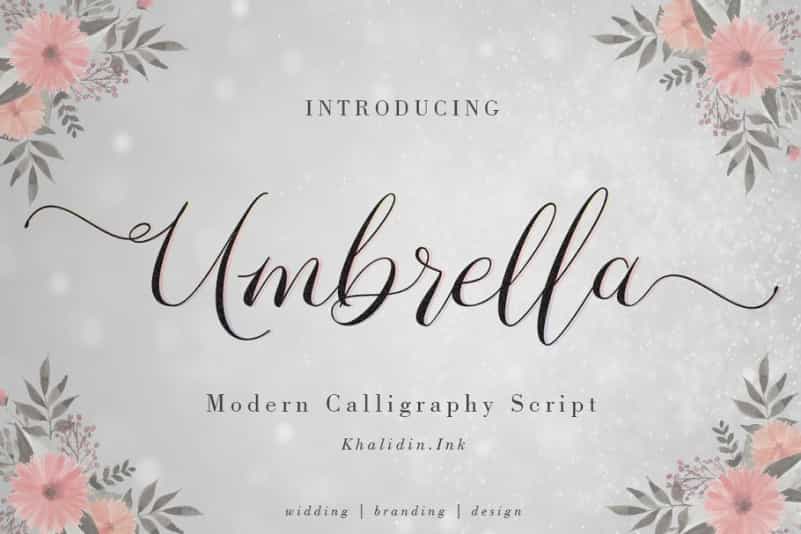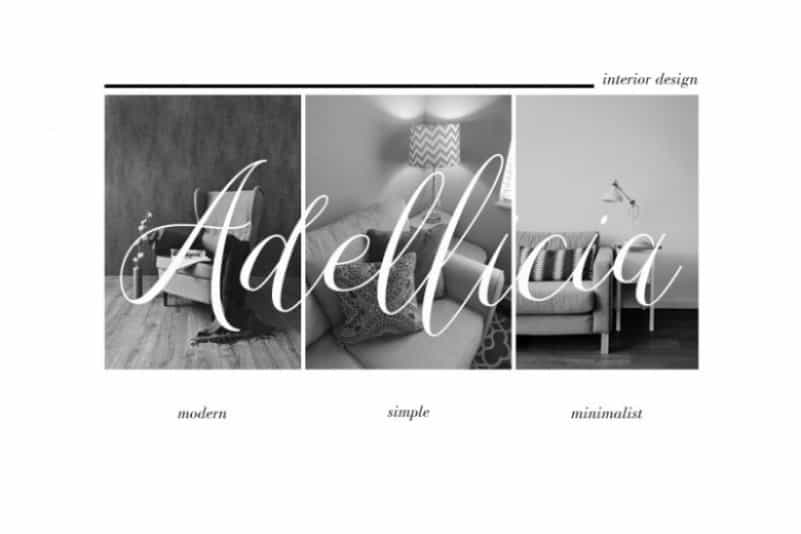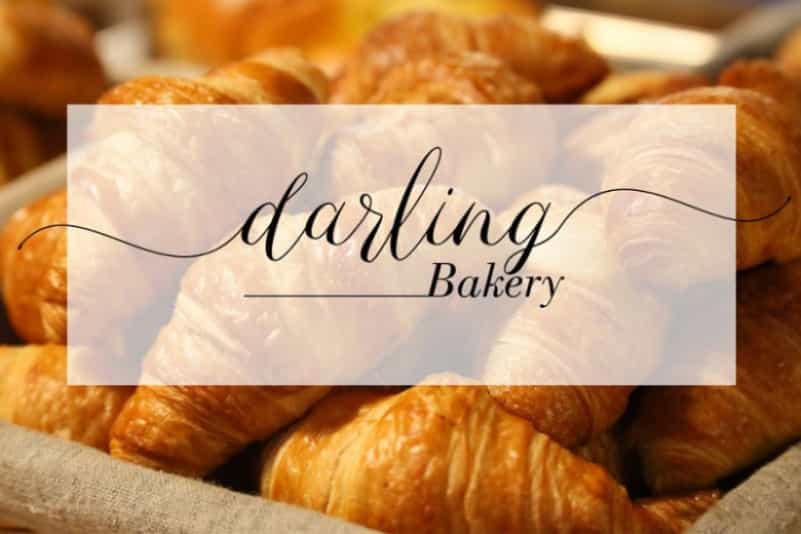
Introducing Umbrella Font. It was designed by Khalidin.Ink. This font is a modern calligraphic type of font, the characteristics of which are shown in the following figure. It has this edgy yet sleek look that can be used to make your design pop out from the rest. It can be applied on logos wedding invitation cards titles signatures, t-shirts, letterheads, signboards, labels, posters and much more!